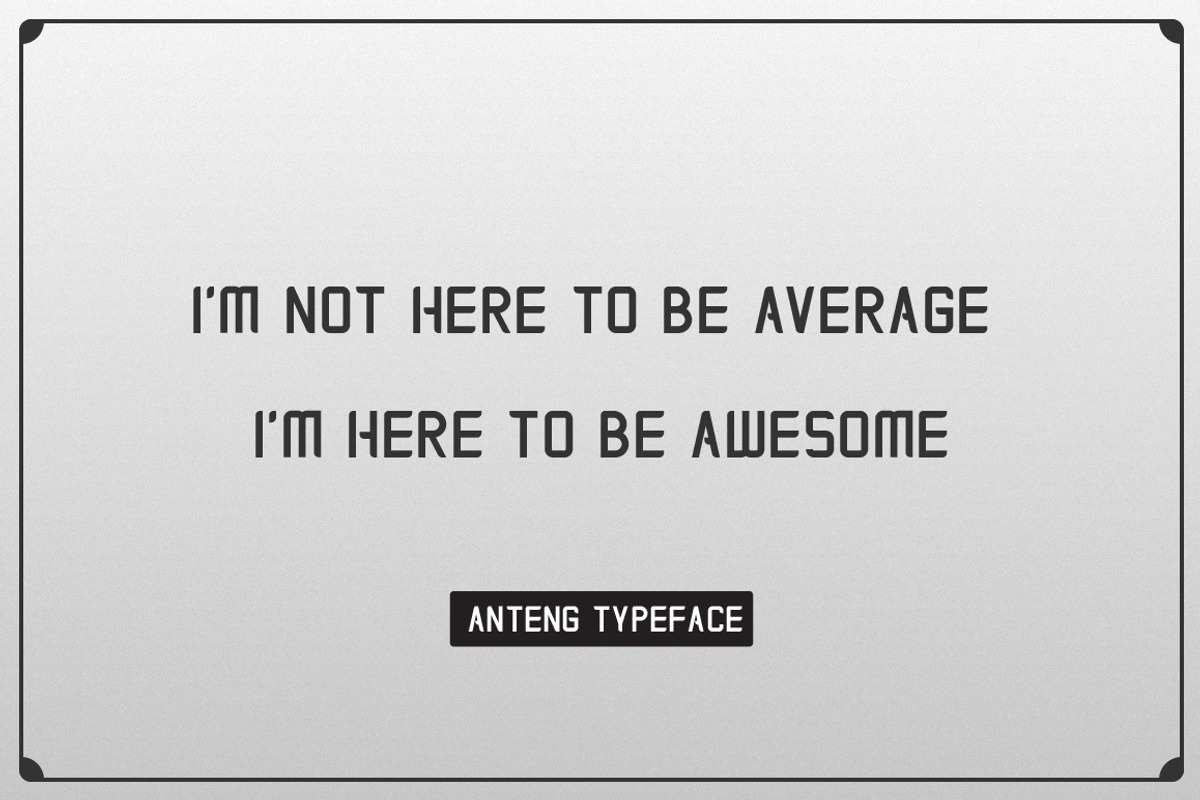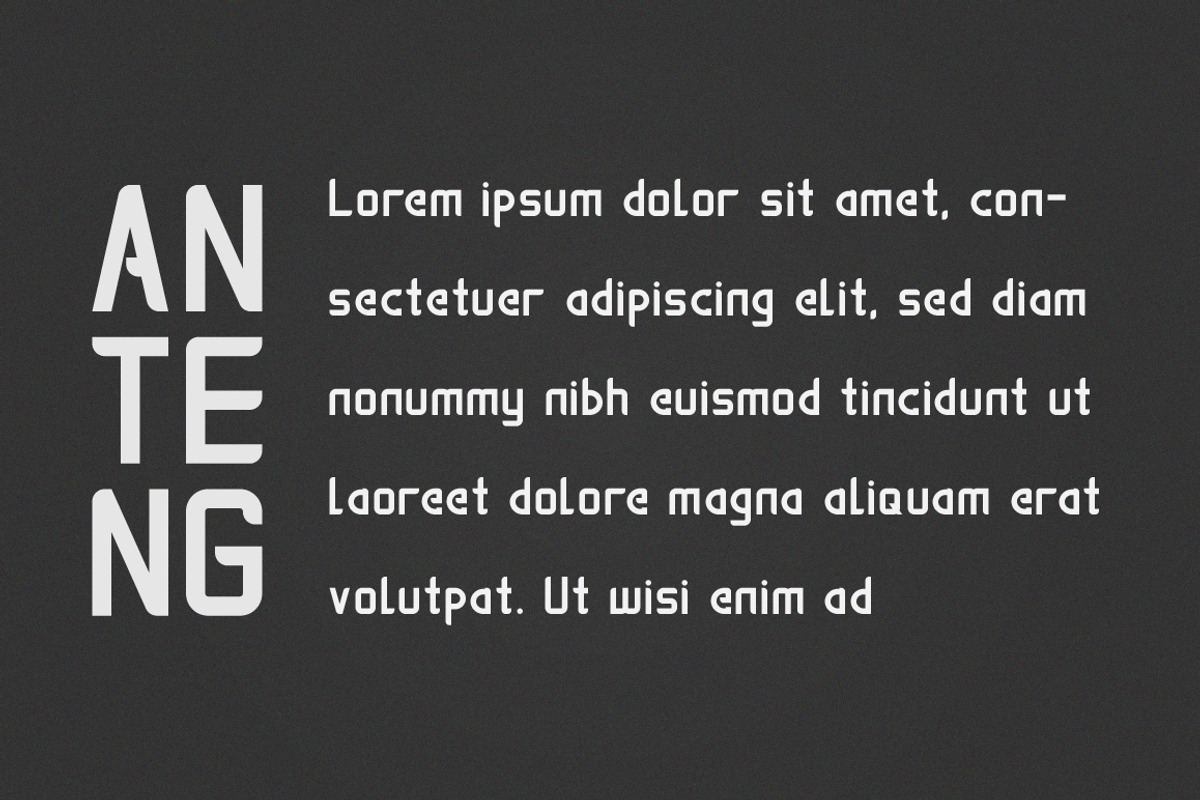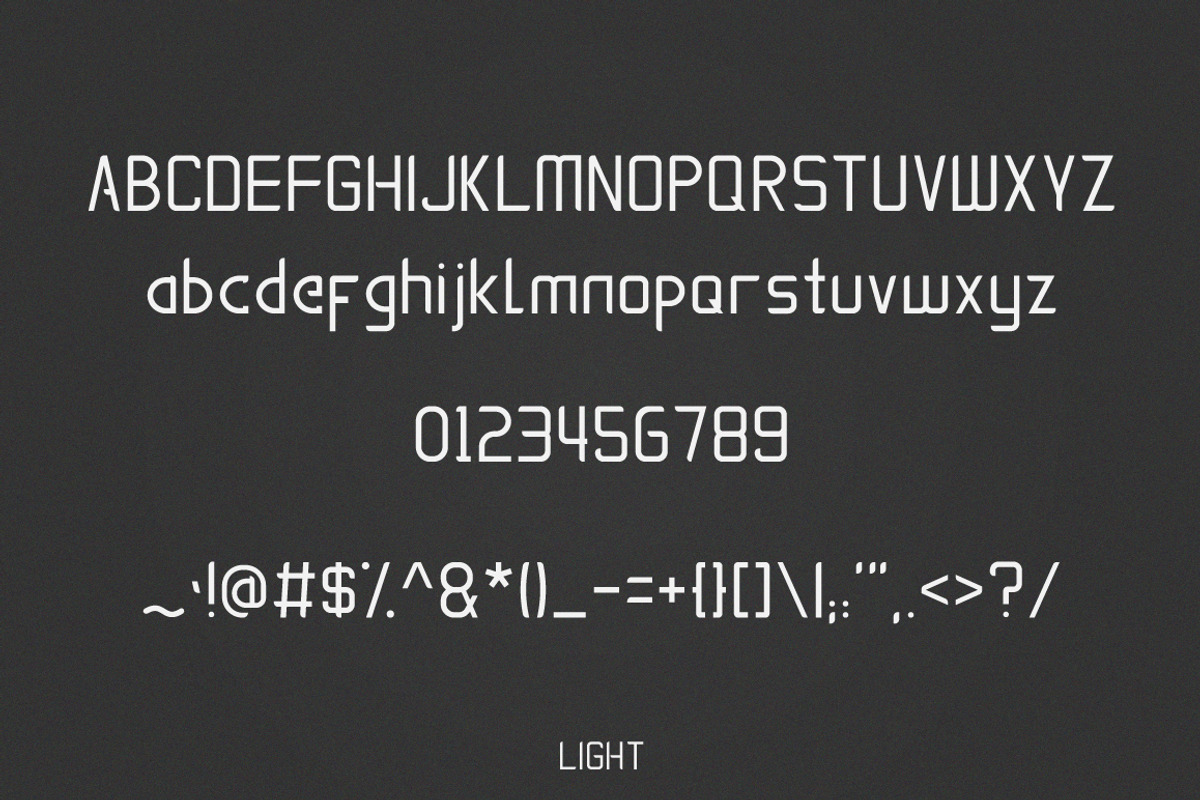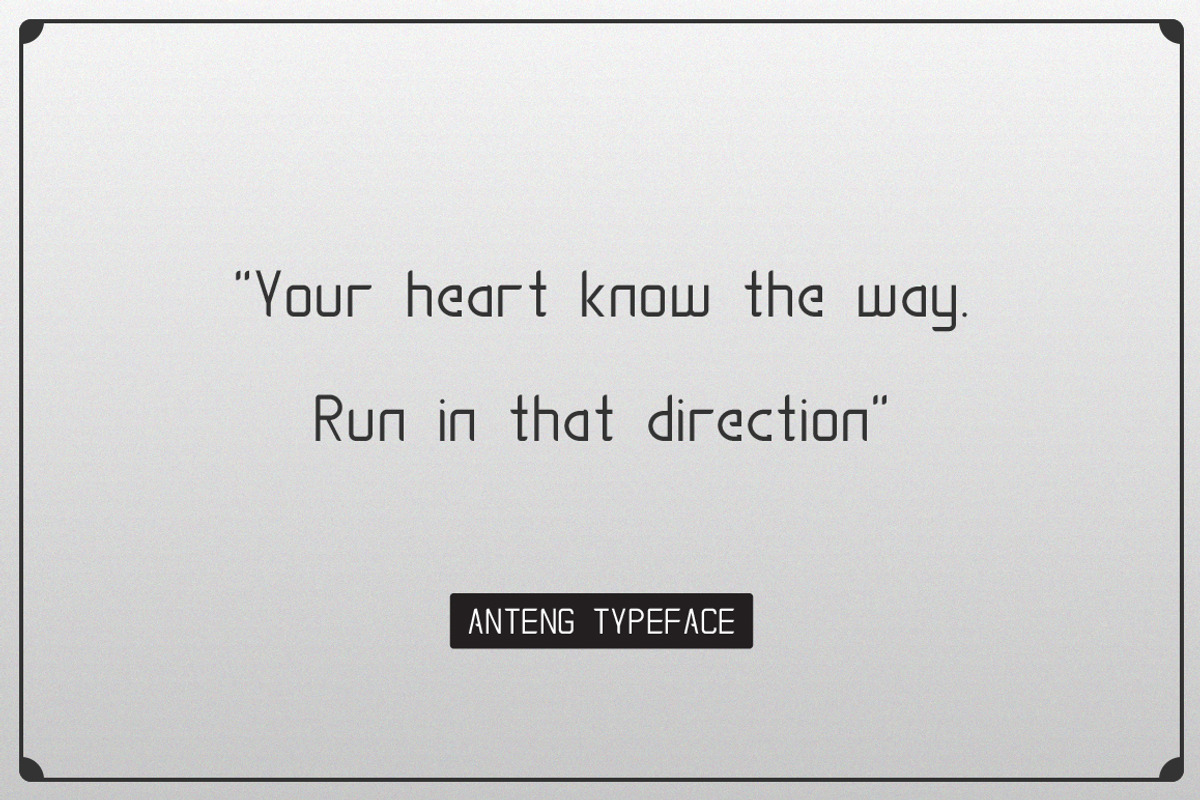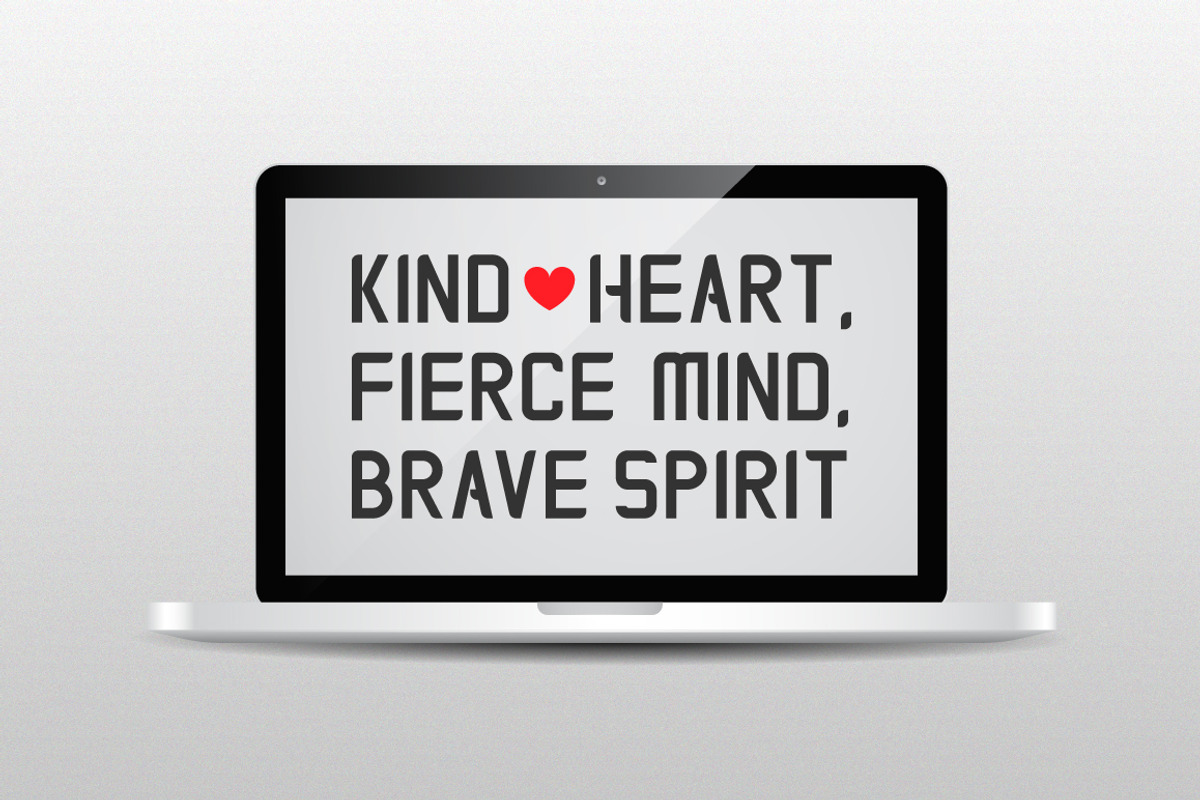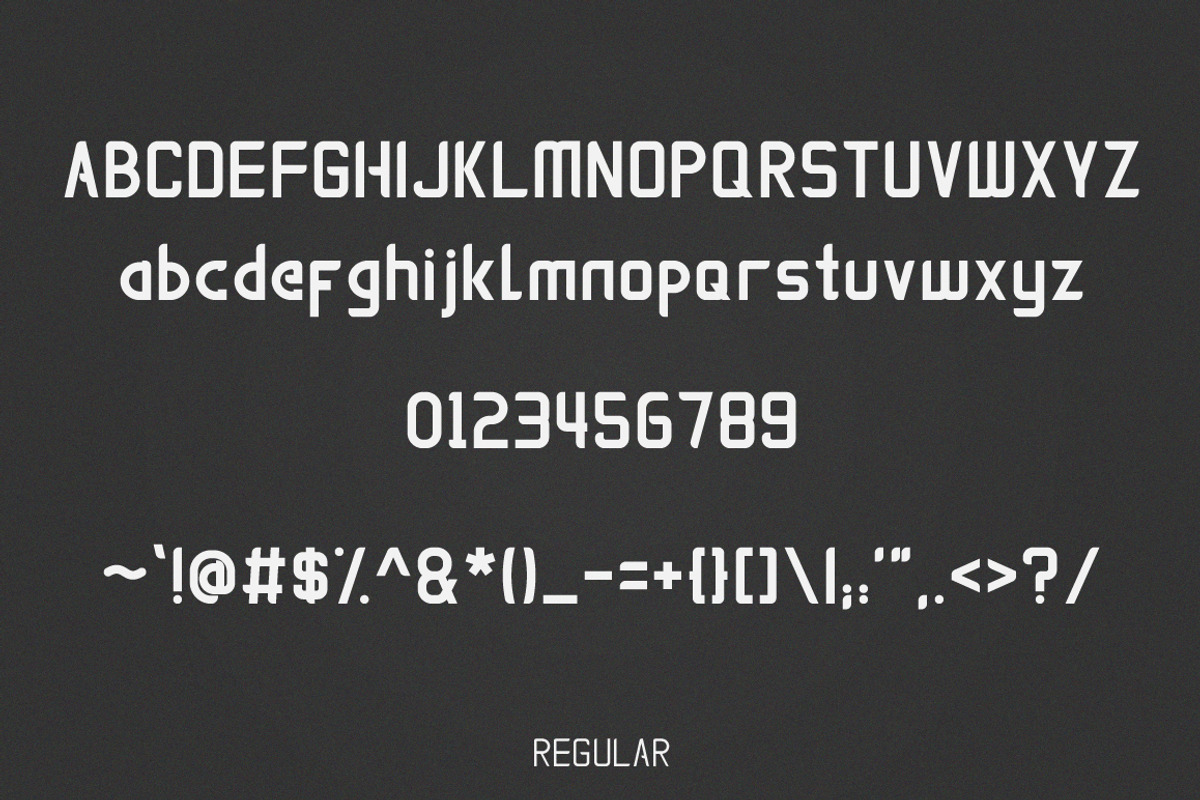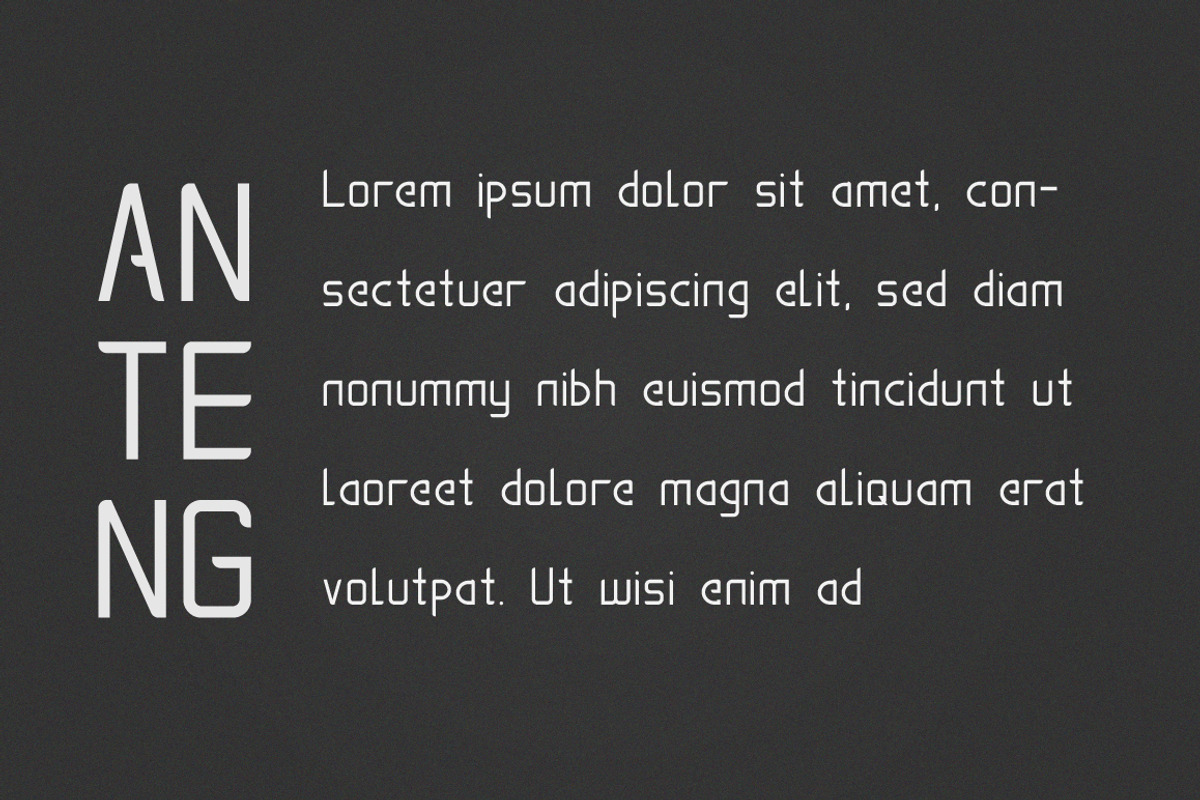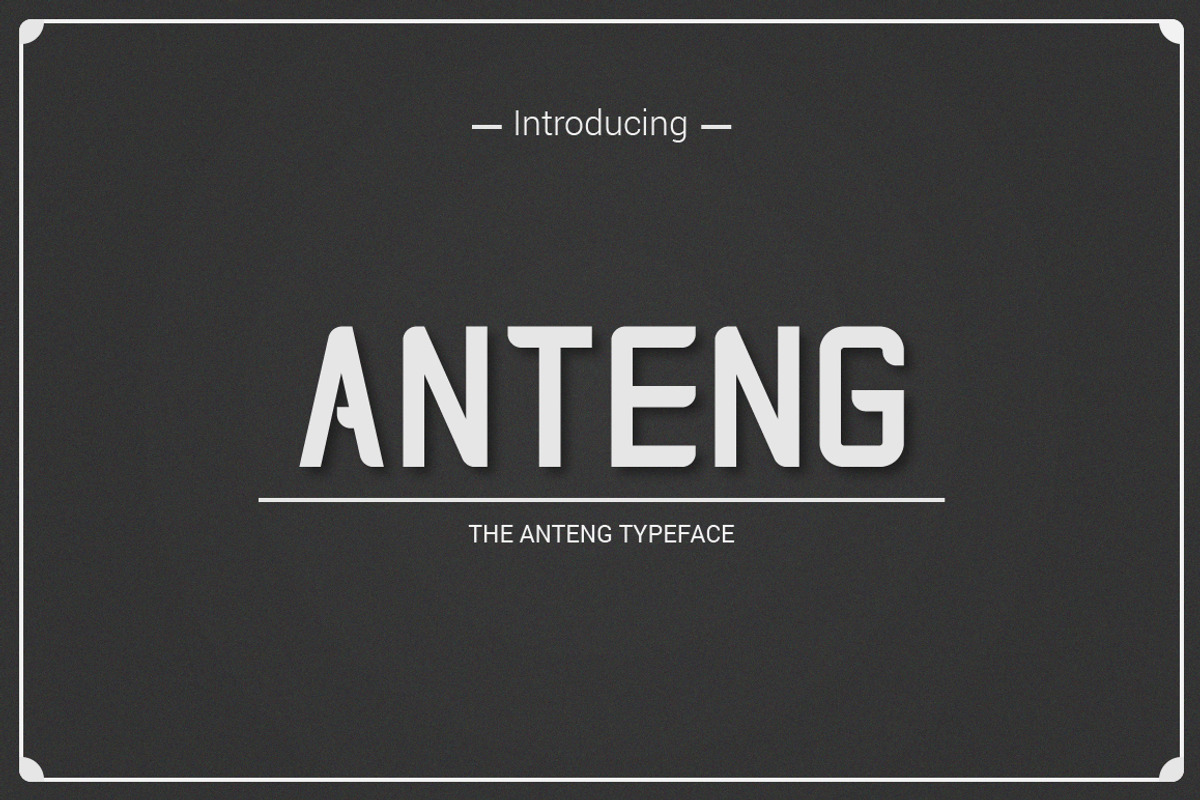
Anteng | Dual Width Font
Introducing The Anteng Typeface.
Anteng is condensed sans serif font with regular and light width. Also include numbers and standartsymbol. It's strong for display and regular text.
2 Width ( Regular and Light )